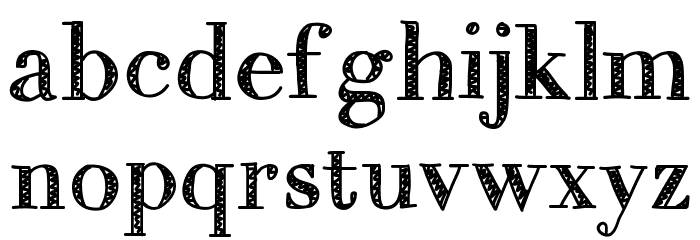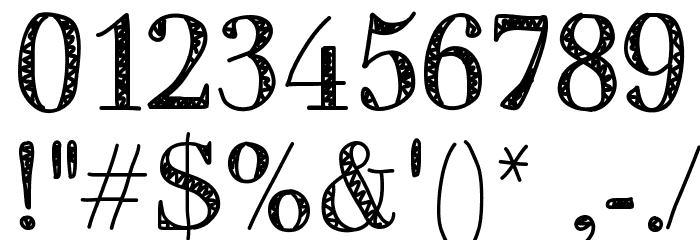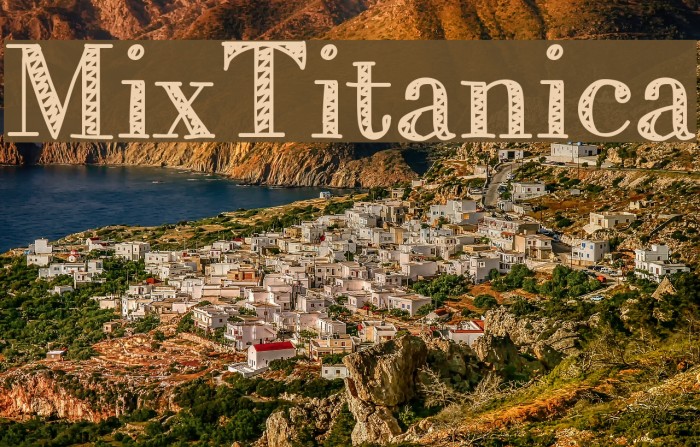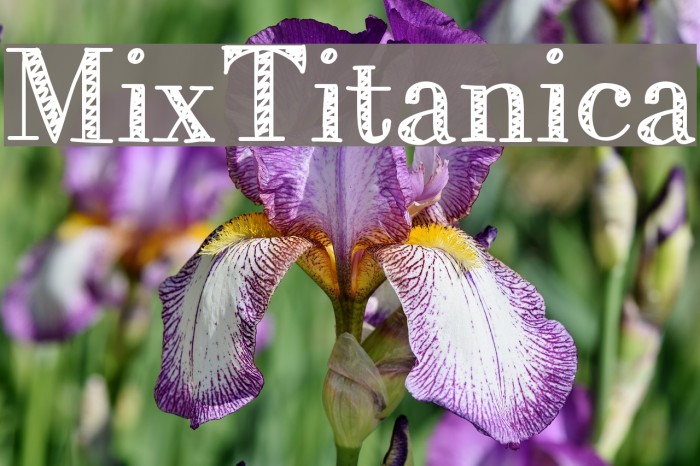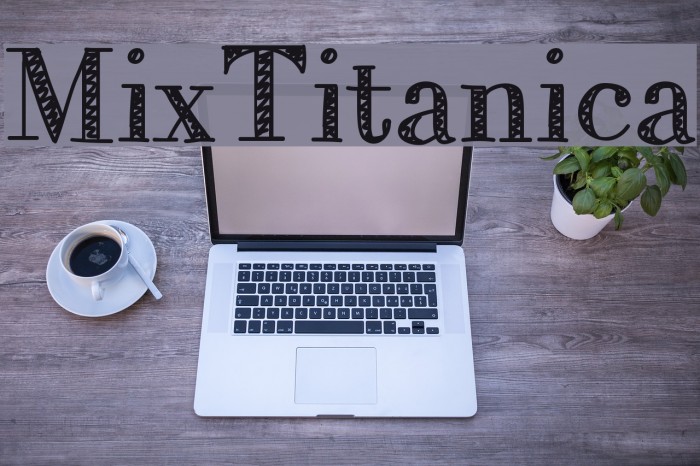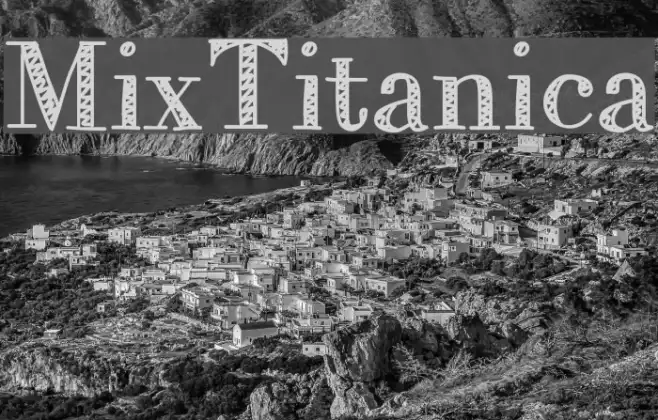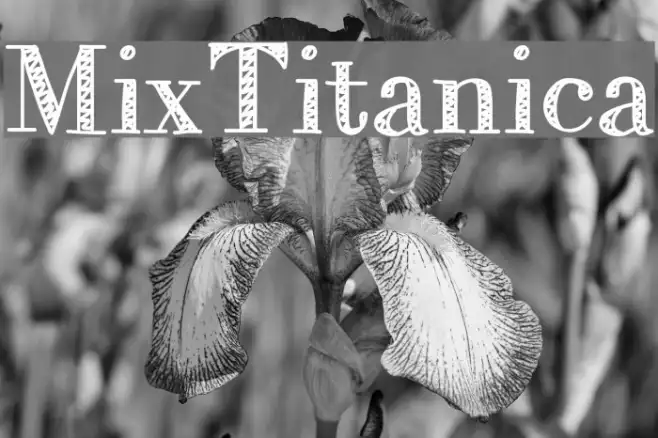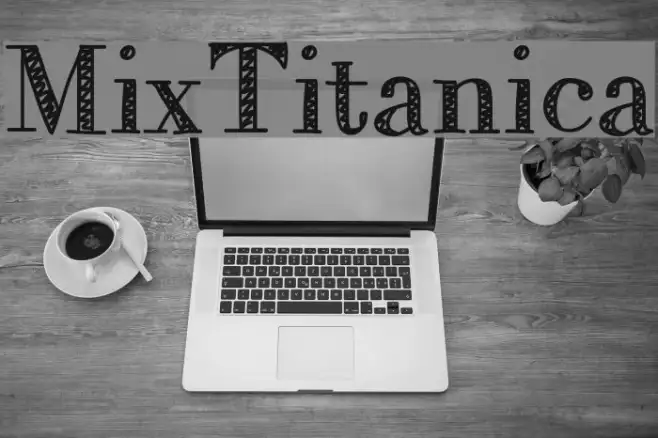
MixTitanica Font
This font features a playful and decorative style with a unique pattern inside each character, resembling a hand-drawn or doodle effect. The uppercase and lowercase letters maintain a consistent design, with bold outlines and intricate internal detailing. Numbers and special characters follow the same aesthetic, making the font cohesive across all elements. The overall appearance is whimsical and artistic, suitable for projects that require a touch of creativity and fun. The font's design is eye-catching and can add a distinctive flair to any visual content.
A decorative font with bold outlines and intricate internal patterns, perfect for creative projects.
- Proposed Projects: Ideal for children's books, playful branding, event posters, and artistic invitations.